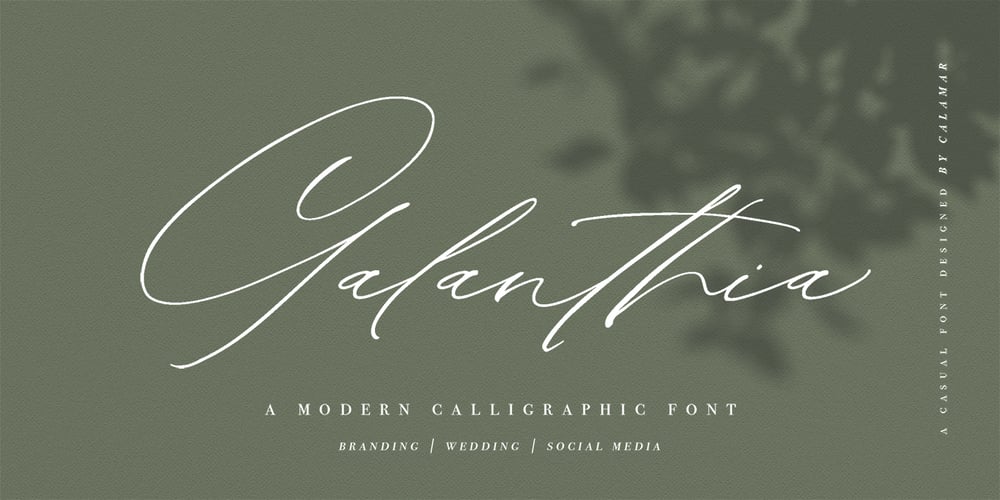
Galanthia
Galanthia font
Galanthia Font Family was designed by Oksana Petrenko and published by Calamar. Galanthia contains 1 styles and family package options. Galanthia Script is a beautiful font for those who are needing of elegance and stylish for their designs and particularly well suited for wedding invitations, cards and feminine branding.Galanthia Script includes Upper and Lowercase Basic Characters, Numbers and Punctuation. Galanthia Script is also available for Western European, Central European and South Eastern European Languages. You can check your language typing characters in text box above.